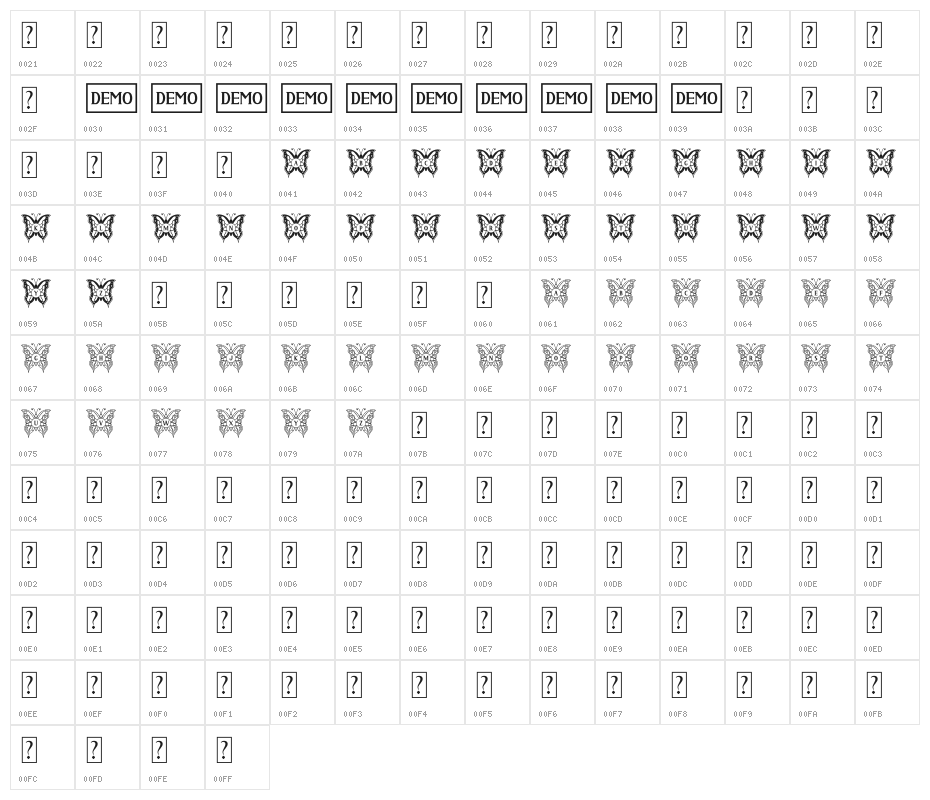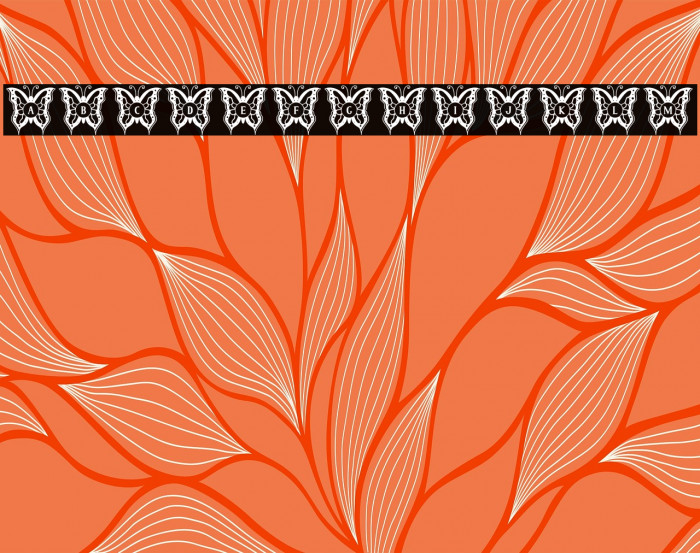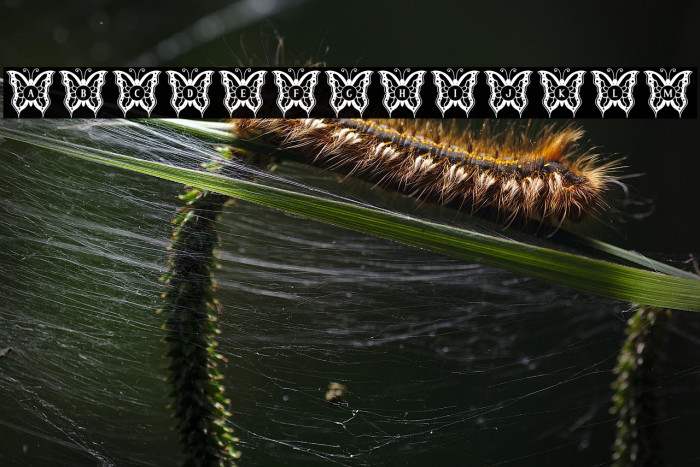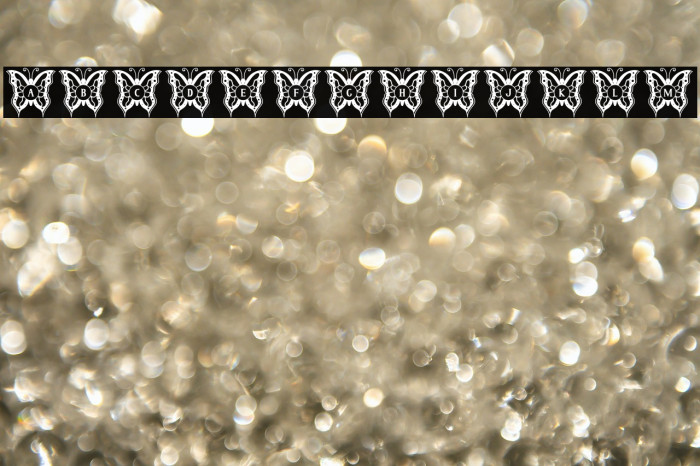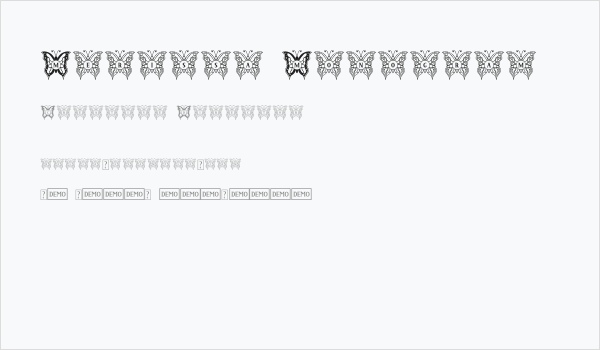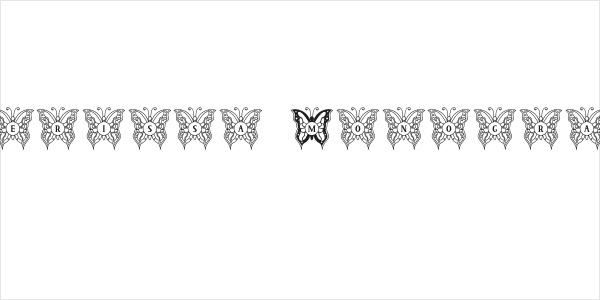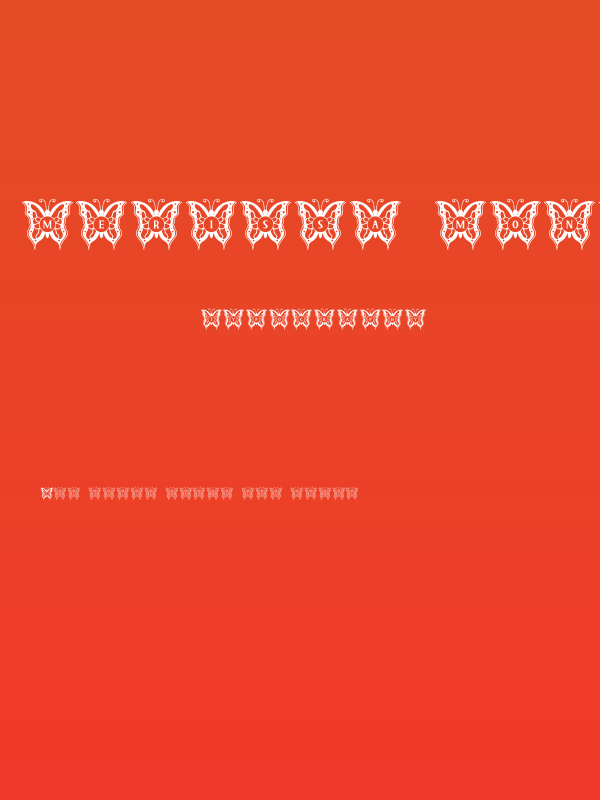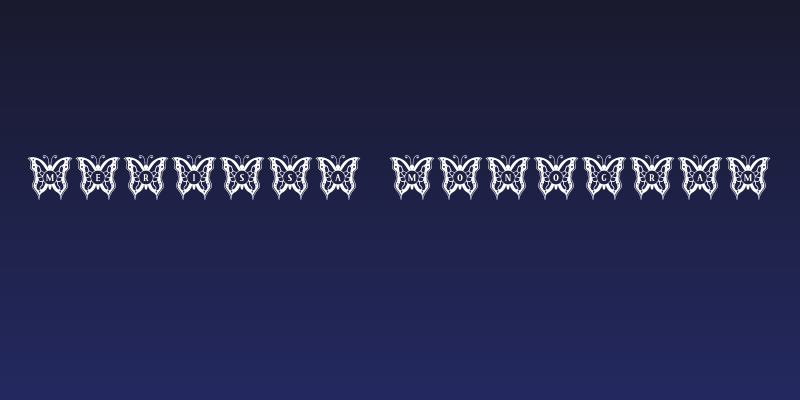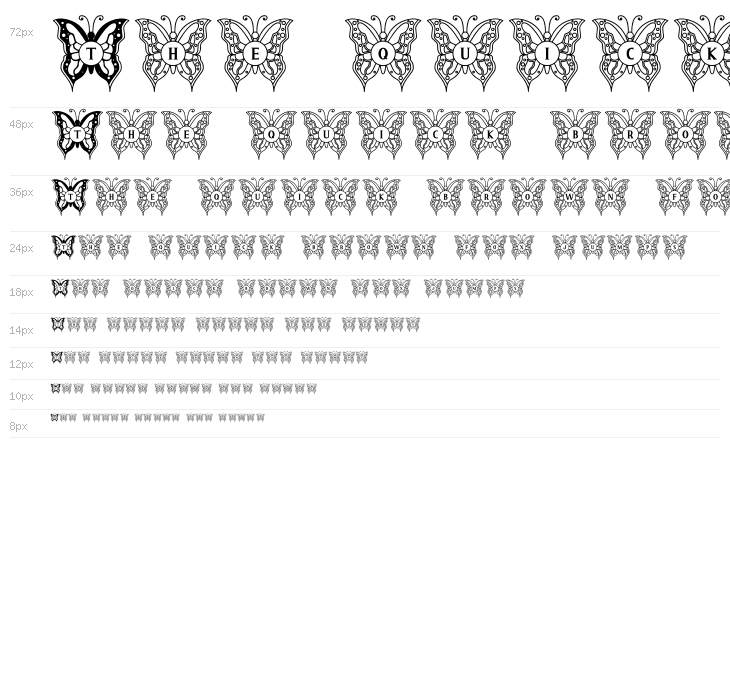
Merissa Monogram Font
Merissa Monogram Description
This design features a decorative monogram style with intricate butterfly motifs surrounding each letter. The uppercase alphabet is adorned with symmetrical, ornate butterfly wings, creating a unique and elegant appearance. The letters are bold and stand out against the detailed butterfly design, making them suitable for decorative purposes. The overall aesthetic is both whimsical and sophisticated, ideal for projects that require a touch of elegance and creativity. The font is not suitable for body text due to its decorative nature but excels in creating eye-catching monograms or logos.
| Use Case | Logos, Monograms, Invitations |
| Proposed Projects | Ideal for creating personalized monograms, wedding invitations, logos, and decorative art pieces. |